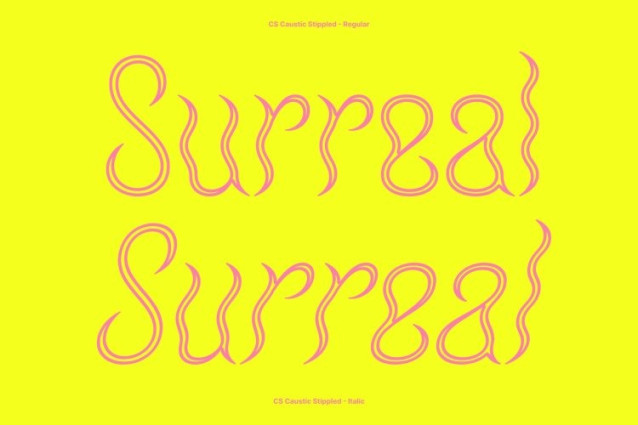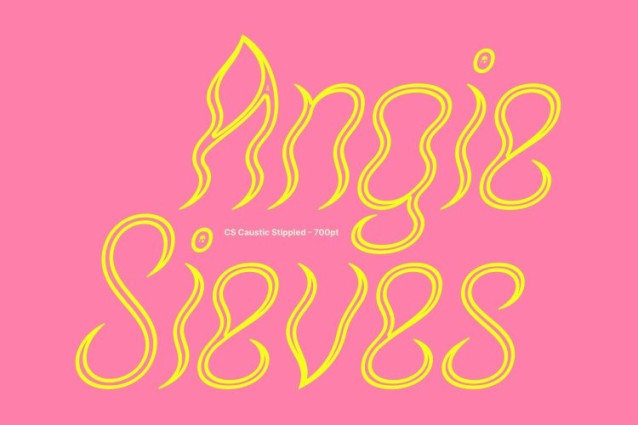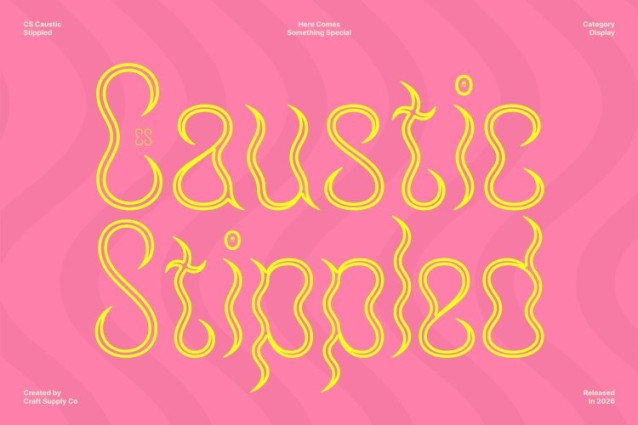
CS Caustic Stippled Font
CS Caustic Stippled Font – This is a modern display font that blends psychedelic expression with funky visual energy. Inspired by the vibrant aesthetics of the 1960s and 1970s, its letterforms twist, curve, and flow with dynamic distortions that create a lively and engaging appearance. These expressive shapes capture the spirit of psychedelic art, resulting in typography that feels bold, artistic, and full of personality.
Funky Creativity with Artistic Texture
The playful nature of this font is enhanced by imaginative shapes and unconventional proportions that bring a cheerful and creative vibe. A stippled texture adds an extra layer of visual richness, introducing a dotted surface inspired by classic stippling and engraving techniques.
Distinctive Style with Retro Influence
By combining psychedelic distortion with subtle textured depth, This font delivers a design that feels nostalgic yet fresh. The swirling letterforms create visual movement, while the stippled surface adds a sense of dimension and artistic craftsmanship. This balance results in typography that is expressive, memorable, and visually engaging.
Perfect for Bold and Creative Projects
Ideal for projects that demand energy and originality. It works beautifully for music posters, festival graphics, album covers, creative branding, and experimental layouts. With its vibrant psychedelic style and textured detailing, the font brings a distinctive, funky personality that ensures your designs stand out with confidence and creativity.